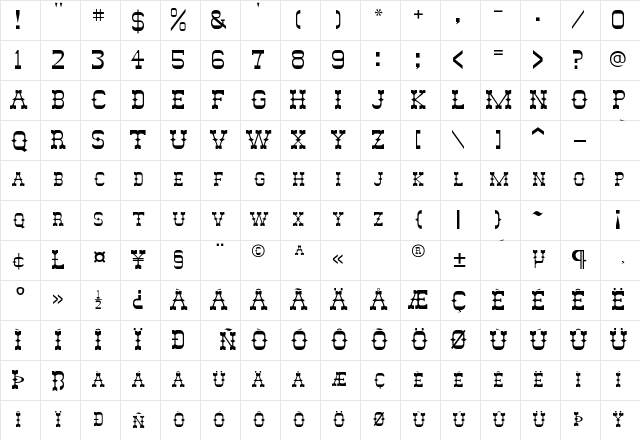
Alamo Regular
Design Context for Alamo
Alamo is a composed and adaptable typeface that performs quietly and consistently across a wide range of design contexts.